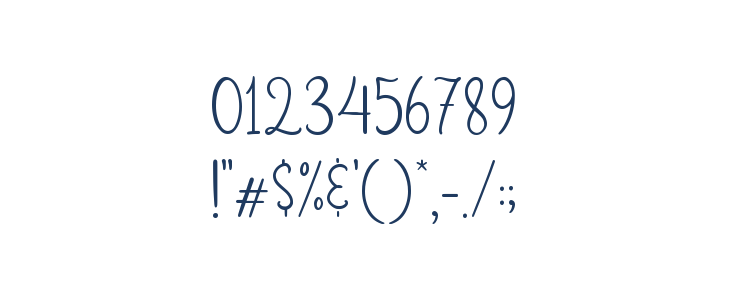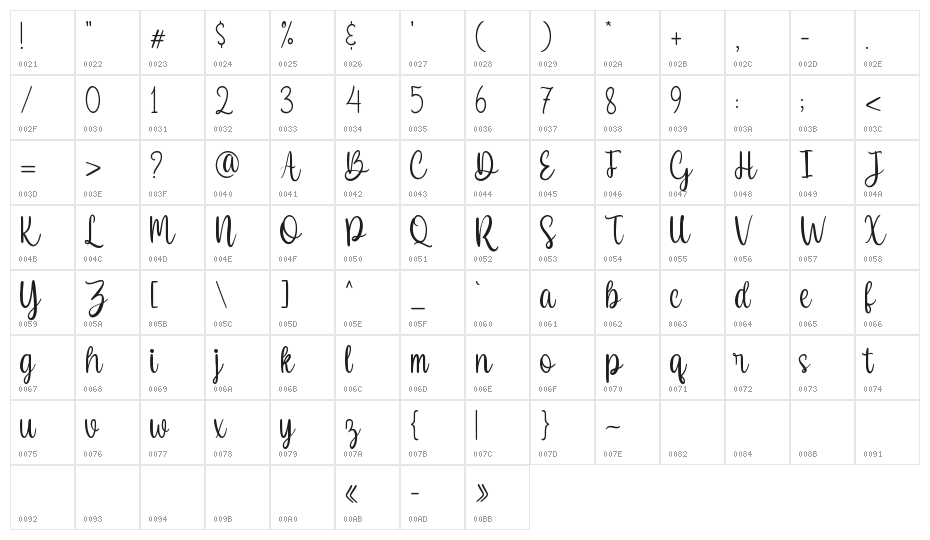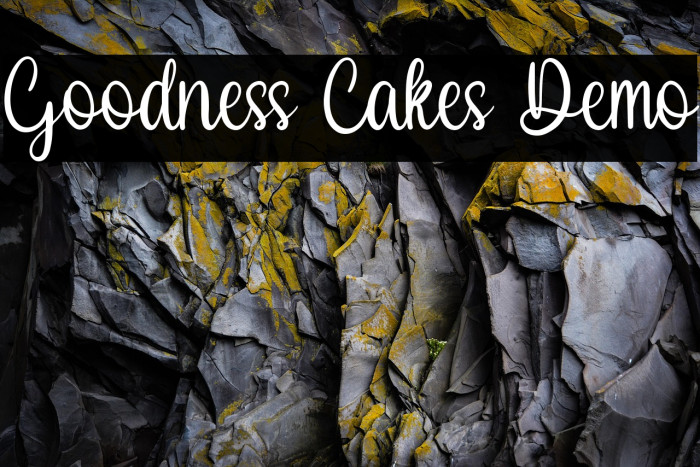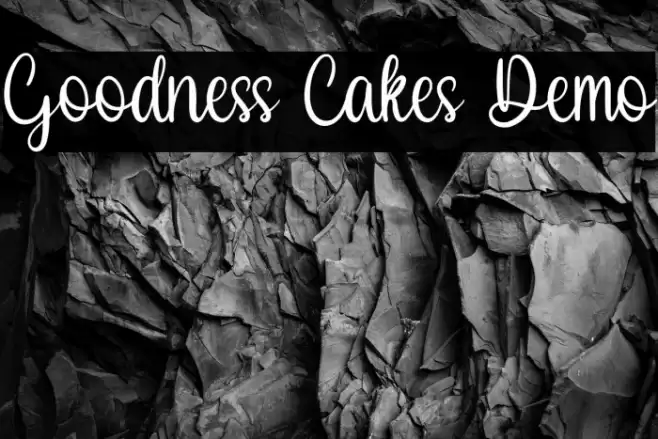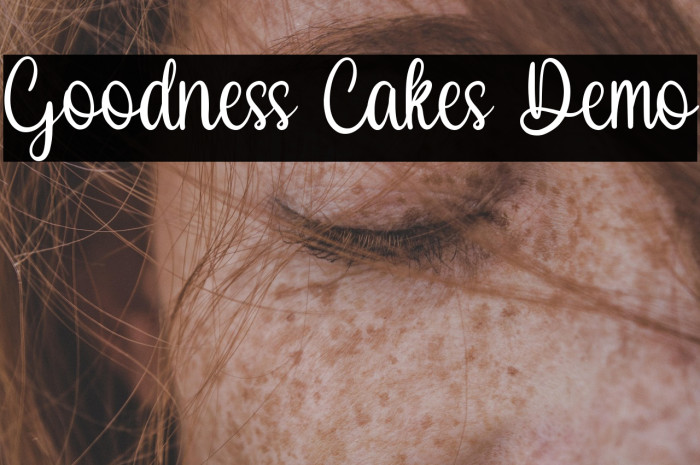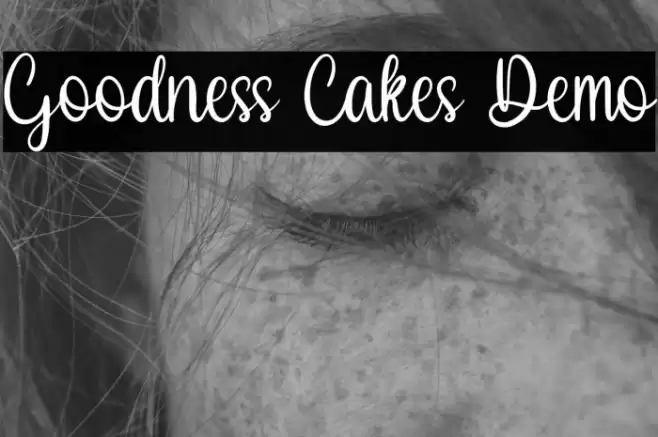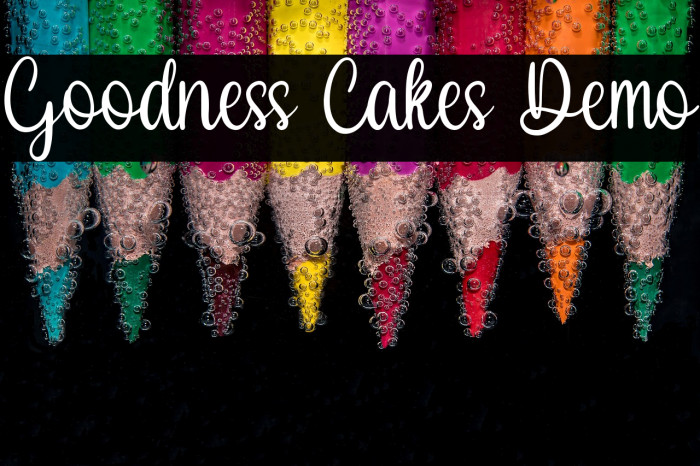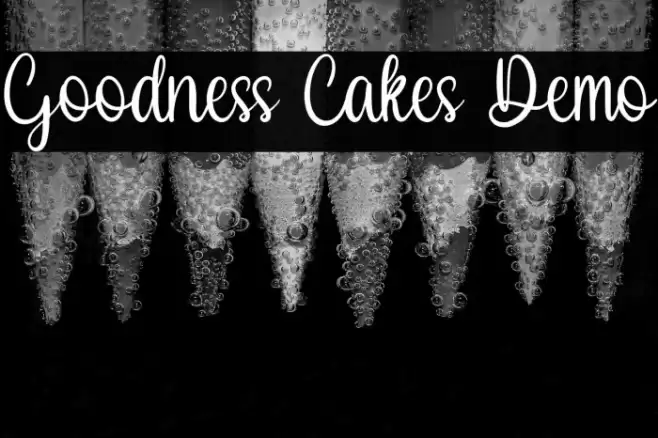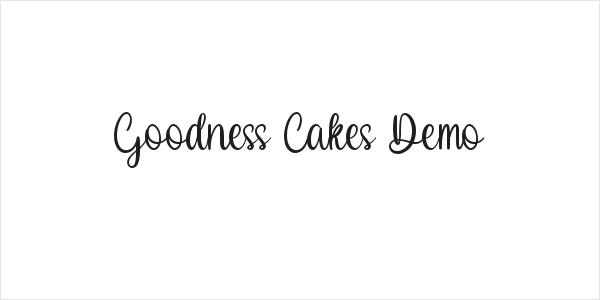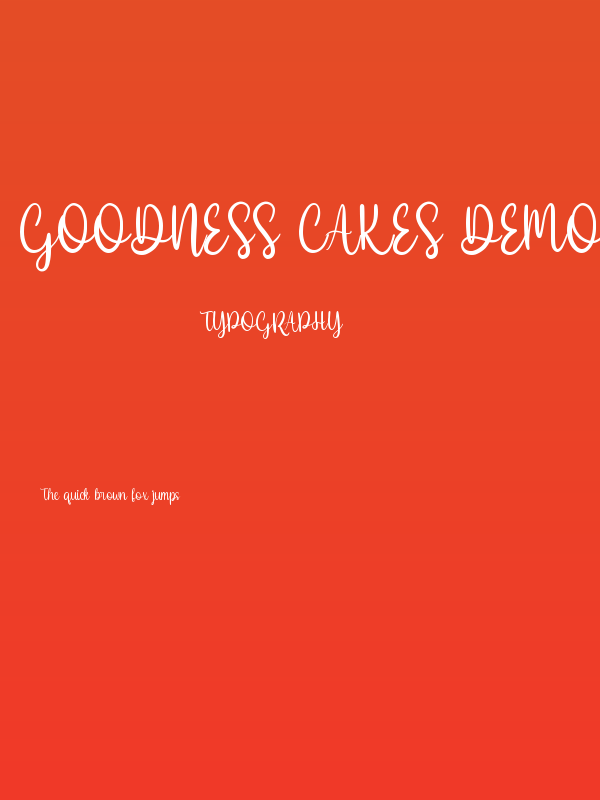
Goodness Cakes Demo Font
Goodness Cakes Demo Description
This playful and whimsical font features a handwritten style with a smooth, flowing script. The uppercase letters are bold and expressive, with unique loops and curves that add a touch of elegance. The lowercase letters maintain a consistent style, offering a harmonious blend of casual and sophisticated elements. Numbers and special characters are crafted with the same attention to detail, ensuring versatility across various design needs. The font's overall appearance is both friendly and approachable, making it ideal for projects that require a personal touch.
| Proposed Projects | Ideal for greeting cards, invitations, logos, and branding materials that require a personal and friendly touch. |